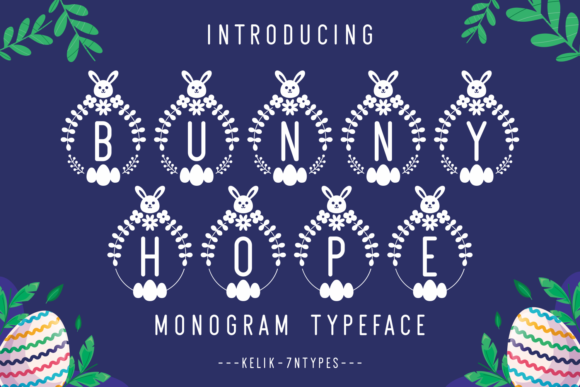
The Easter Bunny of Fonts: A Comprehensive Guide to Bunny Hope Font
Ah, the eternal quest for the perfect font! I recall working on an Easter-themed project last year, determined to create something that would make my client’s eyes sparkle. The brief was simple: create a whimsical and fun design that captured the essence of the Easter season. But, as I scrolled through my font library, I realized that finding the right font was like searching for a needle in a haystack. That’s when I stumbled upon Bunny Hope Font, and my design woes disappeared like magic!
A Personal Review of Bunny Hope Font
I’m thrilled to share my honest review of Bunny Hope Font, and here’s what I think:
- ✨ Cute and Whimsical: Bunny Hope Font is, without a doubt, one of the cutest fonts I’ve ever laid eyes on. Its playful and jolly style is perfect for Easter-themed designs, kids’ projects, or any creative endeavor that needs a dash of fun.
- ✅ Easy to Read: Despite its playful nature, Bunny Hope Font remains surprisingly legible, making it an excellent choice for headlines, titles, and short paragraphs.
- ✅ Versatile: This font is incredibly versatile and can be used for a wide range of projects, from digital designs to print materials.
Now, I’m not going to sugarcoat it – every font has its quirks. Here are a few things to keep in mind:
- 🤔 Limited Use in Body Text: While Bunny Hope Font is amazing for headlines and titles, it might not be the best choice for lengthy body text. Its playful nature can make it difficult to read in large blocks.
- ⚠️ Glyph Limitations: Some users have reported that the font’s glyph library is limited, which might restrict its use in certain design projects.
The Story Behind Bunny Hope Font
Rumor has it that Bunny Hope Font was created by a talented type designer who wanted to capture the essence of Easter in a font. Inspired by the whimsical world of bunnies, eggs, and springtime, the designer crafted a font that would bring joy and playfulness to any design project. Whether or not that’s true, one thing is certain – Bunny Hope Font has become a beloved favorite among designers and crafters.
| Font Name | Bunny Hope Font |
| Author | Kelik – 7NTypes |
| What is the best use for Bunny Hope Font? | Bunny Hope Font is perfect for Easter-themed designs, kids’ projects, or any creative endeavor that needs a dash of fun and playfulness. |
| Is Bunny Hope Font suitable for body text? | While Bunny Hope Font is amazing for headlines and titles, it might not be the best choice for lengthy body text due to its playful nature. |